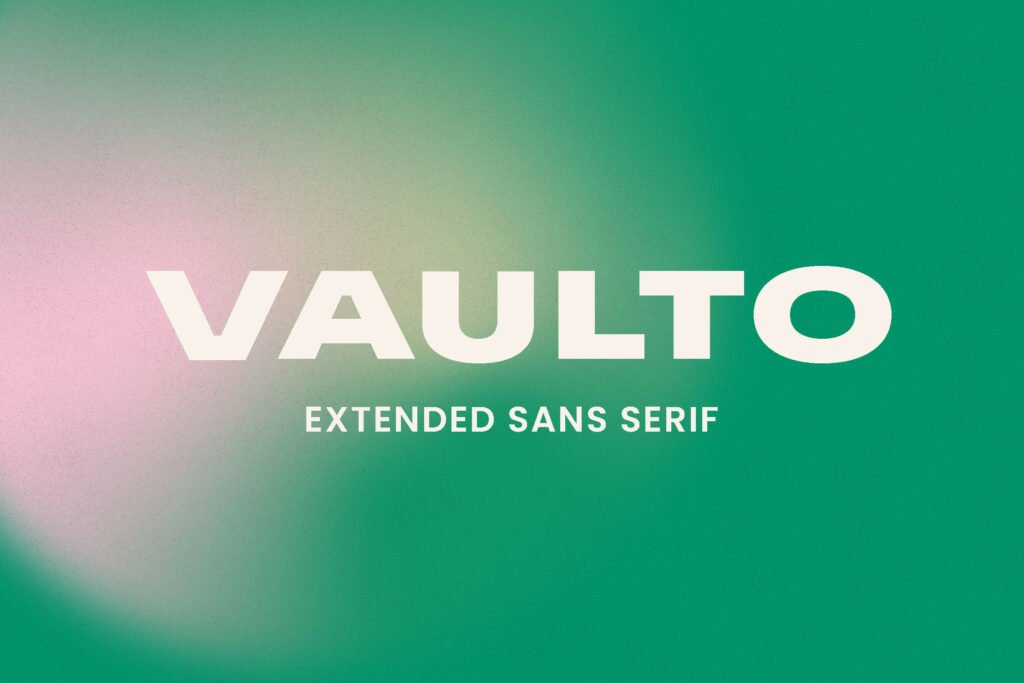
Vaulto Black Font
Vaulto Black Font is a simple, thick lettered and bold sans serif font. It can easily be matched to an incredibly large set of projects, so add it to your creative ideas and notice how it makes them stand out! This font is free for PERSONAL USE.
Vaulto Black Sans Serif Font